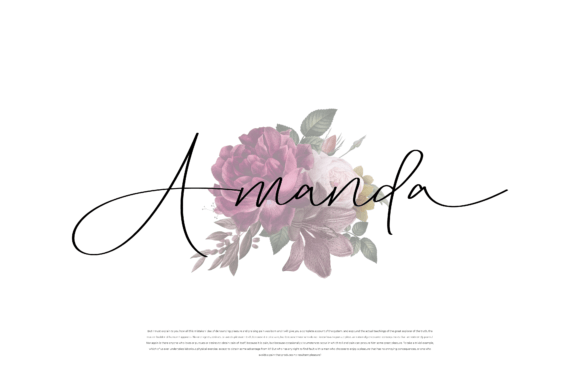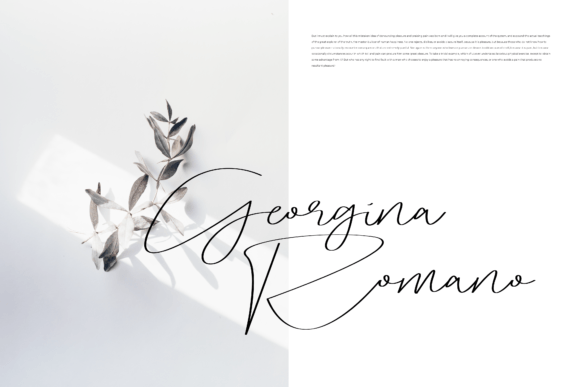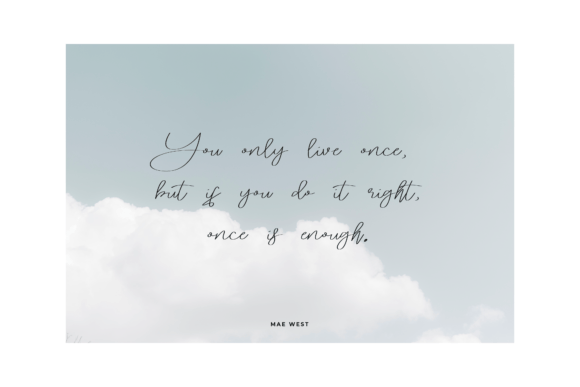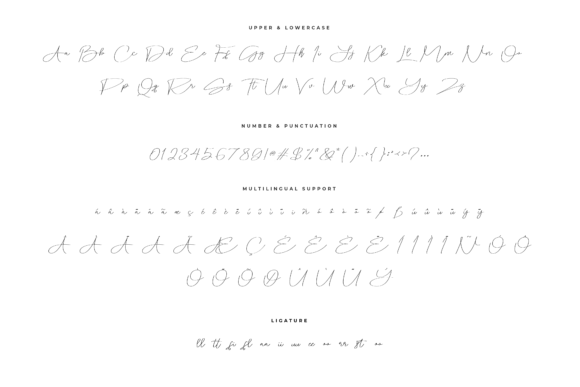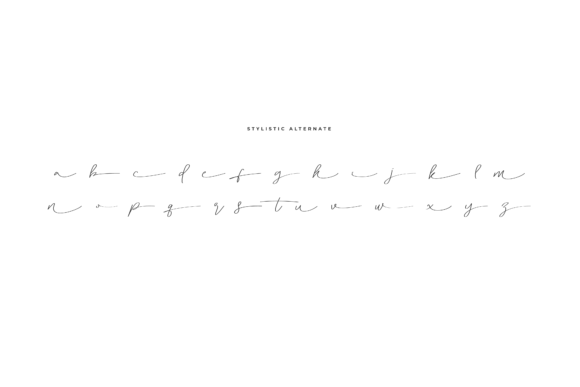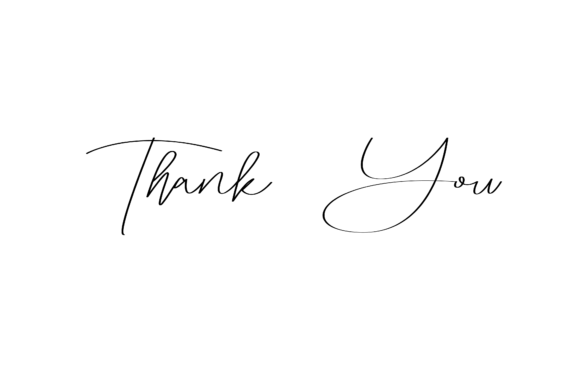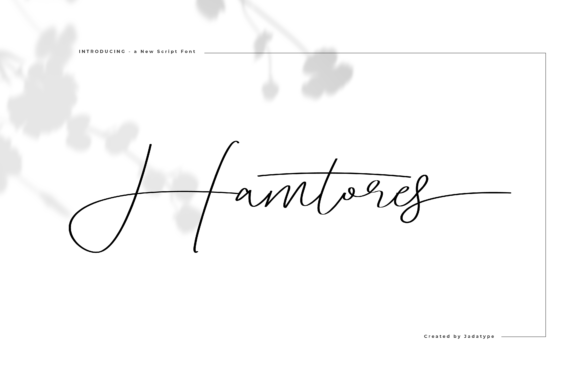
Hamtores Font: Elevate Your Designs with a Lovely and Timeless Handwritten Style
Are you a designer or crafter looking for a unique and captivating font to bring your creative projects to life? Look no further than Hamtores Font! This lovely and timeless handwritten font is the perfect choice for creating eye-catching logos, branding, and quotes that will leave a lasting impression.
The Beauty of Hamtores Font
What sets Hamtores Font apart is its distinctive and beautiful touch. Every letter has been carefully crafted to possess a unique character, making it a standout in the world of typography. The font’s handwritten style exudes a sense of warmth and personality, making it ideal for designs that require a personal touch.
With Hamtores Font, the design possibilities are endless! Whether you’re creating a logo, branding materials, or inspirational quotes, this font is sure to elevate your designs to the next level. Its versatility makes it suitable for a wide range of projects, from:
- Logos and branding materials: Create a lasting impression with a unique and memorable logo that reflects your brand’s personality.
- Quotes and posters: Add a touch of elegance and sophistication to your inspirational quotes and posters.
- Social media graphics: Stand out on social media with eye-catching graphics that showcase your brand’s style.
- Stationery and packaging: Add a personal touch to your stationery and packaging with a beautiful and distinctive font.
Why Choose Hamtores Font?
So, why choose Hamtores Font over other fonts? Here are just a few reasons:
- Unique and beautiful touch: Every letter has a distinctive character that will make your designs stand out.
- Timeless style: The font’s handwritten style is timeless and will never go out of fashion.
- Versatile: Suitable for a wide range of projects, from logos to social media graphics.
- Easy to read: The font is clear and easy to read, making it perfect for body text and headlines.
Tips for Using Hamtores Font
To get the most out of Hamtores Font, here are a few tips:
- Experiment with font sizes: Hamtores Font looks great in a variety of font sizes, from large headlines to smaller body text.
- Play with colors: The font looks great in a range of colors, from bold and bright to soft and pastel.
- Mix and match: Combine Hamtores Font with other fonts to create a unique and eye-catching design.
In conclusion, Hamtores Font is a lovely and timeless handwritten font that is sure to elevate your designs to the next level. With its unique and beautiful touch, versatility, and ease of use, it’s the perfect choice for designers and crafters looking to create eye-catching logos, branding, and quotes. So why wait? Try Hamtores Font today and bring your creative projects to life!
Whether you’re a seasoned designer or a crafty DIY enthusiast, Hamtores Font is a must-have in your font collection. Its timeless style and versatility make it a valuable asset for any creative project. So go ahead, get creative, and see the amazing things you can do with Hamtores Font!